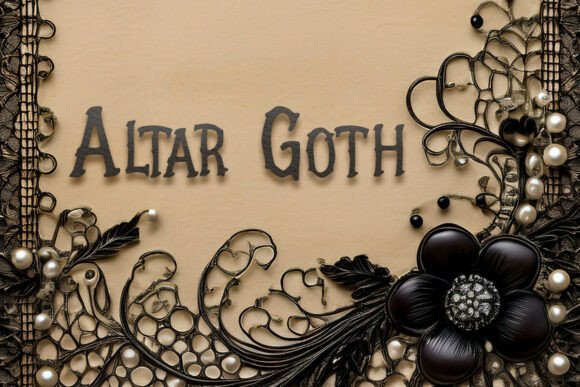
Discover the Enigmatic Allure of Altar Goth Font
Have you ever stared at a blank page, surrounded by endless possibilities, yet struggling to find the perfect font to convey your creative vision? You’re not alone. We’ve all been there, searching for that one font that captures the essence of our artistic intent. For designers, finding the right font can be a game-changer, elevating a simple project to a work of art. Enter the Altar Goth Font, a dynamic and versatile typographic gem that’s poised to revolutionize your creative endeavors.
With its striking visual effect and edgy appeal, the Altar Goth Font is an ideal choice for a wide range of projects, from t-shirt designs and sticker concepts to magazine layouts and Cricut projects. Whether you’re a seasoned designer or a creative enthusiast, this font is sure to add a touch of mystery and sophistication to your work.
Altar Goth Font Key Features
- Font Family: A unique, gothic-inspired font with a mysterious and elegant feel.
- Character Count: 256 glyphs, including uppercase and lowercase letters, numbers, and special characters.
- Unique Characteristics: Includes unique ligatures, swashes, and ornaments to add a touch of elegance and sophistication to designs.
Altar Goth Font Review
I recently had the chance to work with the Altar Goth font, and I must say it’s a unique addition to any project. ✨ Its gothic-inspired design and ornate details make it perfect for creating a mysterious or eerie atmosphere.
- ✨ The font’s gothic aesthetic is well-executed, making it perfect for projects that require a darker, more ominous tone.
- ✨ The font is highly customizable, allowing you to adjust the size, color, and spacing to fit your design needs.
- ✨ The font includes a wide range of glyphs and characters, making it suitable for a variety of languages and applications.
- ⚠️ The font can be quite dense, which may make it difficult to read at smaller sizes.
- ⚠️ Some of the glyphs and characters may not be fully compatible with certain operating systems or software.
- ⚠️ The font may not be suitable for projects that require a more straightforward or minimalist design.
Overall, I think the Altar Goth font is a great choice for projects that require a touch of darkness and mystery. While it may have some limitations, its unique design and high level of customization make it a valuable addition to any designer’s toolkit.
Altar Goth Font is ideal for creating a spooky or mystical atmosphere in designs related to Halloween, gothic fashion, or fantasy.
For maximum effect, use Altar Goth Font in combination with dark colors, bold graphics, and intricate textures.
Experiment with different font sizes, colors, and styles to achieve a unique and captivating look.